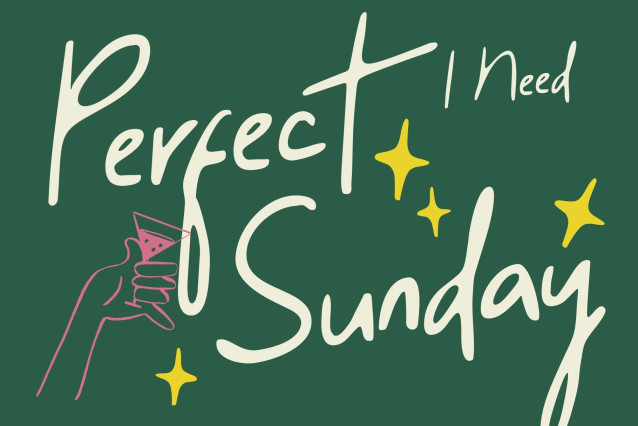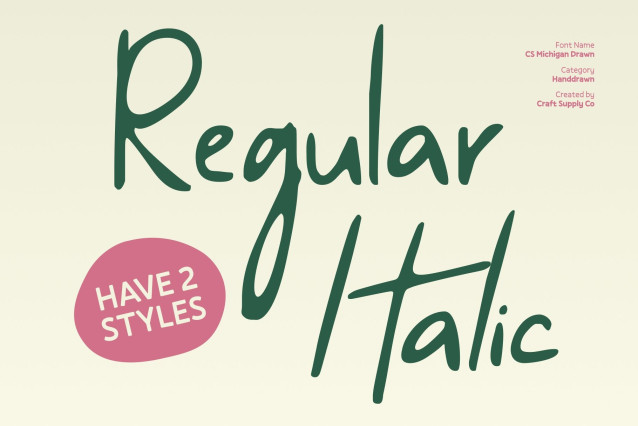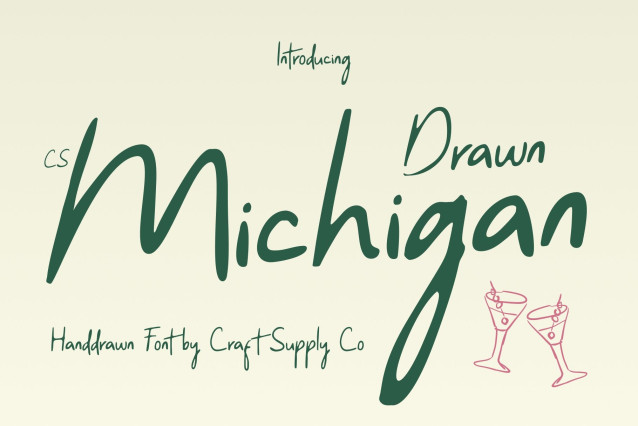
CS Michigan Drawn Font
CS Michigan Drawn Font. This font is a casual handwritten display font that captures the warmth and authenticity of natural writing. Its hand-drawn strokes feel personal and expressive, creating a friendly tone that makes text feel approachable and full of character. The relaxed style brings a human touch to designs, making them feel more engaging and genuine.
Natural Flow for Organic Visual Appeal
Each letterform is crafted with smooth movement and organic rhythm, reflecting the spontaneity of real handwriting. Subtle imperfections add charm without reducing clarity, resulting in a font that balances readability with artistic expression. This natural flow gives layouts a relaxed, welcoming atmosphere.
Casual Style with Creative Warmth
The informal structure and flowing shapes convey creativity and friendliness at a glance. This font adds emotional warmth to headlines and short texts, making it especially effective for playful, lifestyle, or personal-themed designs that want to feel sincere and lively.
Perfect for Branding and Creative Projects
Ideal for branding, posters, packaging, editorial layouts, and social media graphics, this font adapts effortlessly to various creative uses. This font delivers a cheerful handwritten character that helps designs feel memorable, inviting, and full of personality.